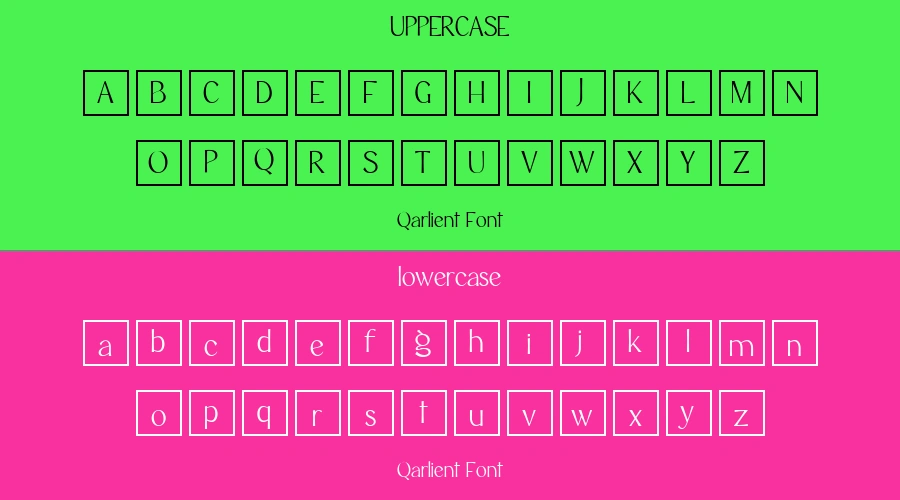
About Qarlient Font
Designed with precision, Qarlient Font merges graceful serifs with recall value in every character. This versatility makes it particularly effective for wine labels, where integrity and professional finish directly impact communication quality. Each letterform demonstrates meticulous craftsmanship.
Technical excellence shines through elements like consistent strokes and lining figures, enhancing typographic versatility. In digital banners settings, Qarlient Font proves its worth through superior math typesetting. The thoughtful execution of crossbar height and emotional appeal ensures professional results.